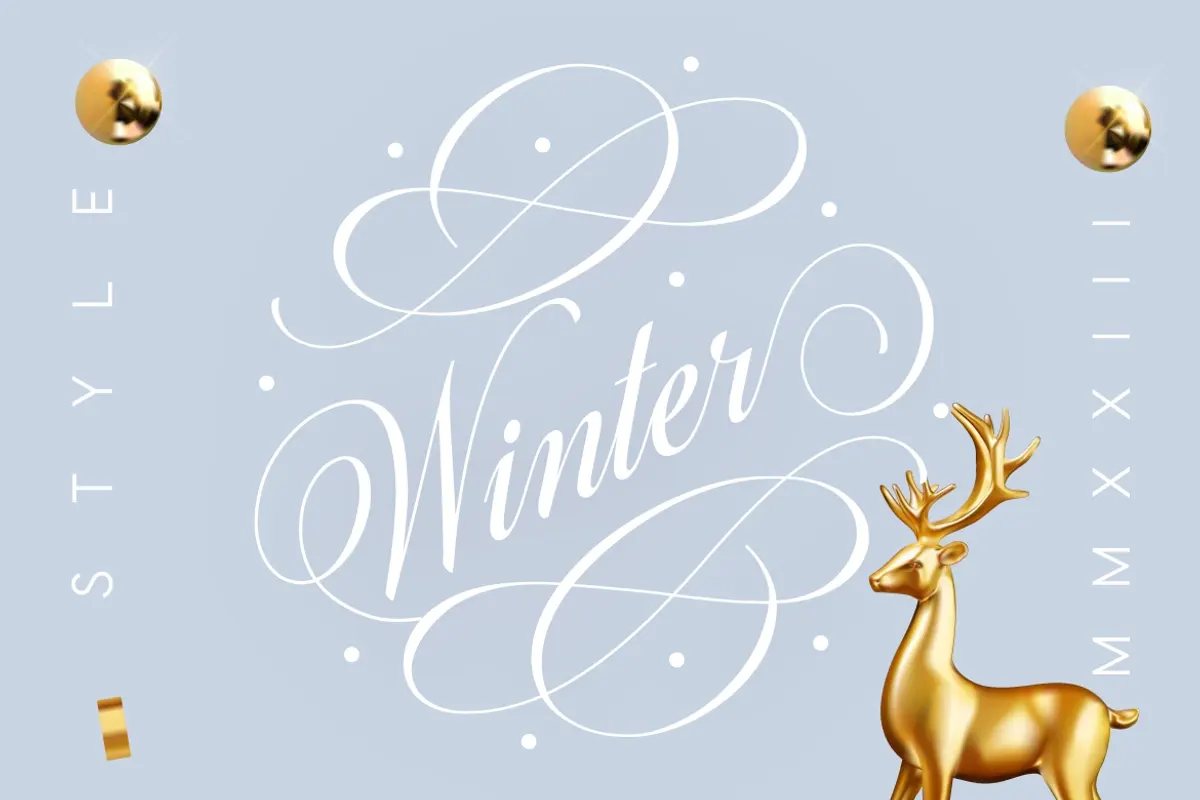
Winter Elegant Fonts Bundle Free Download is a carefully curated collection of sophisticated, seasonal typefaces perfect for capturing the cozy charm and refined spirit of winter. Featuring a mix of elegant scripts, timeless serifs, and stylish display fonts, this bundle is ideal for holiday cards, winter wedding invitations, seasonal branding, packaging, and festive social media content.
Each font in the Winter Elegant Fonts Bundle Free Download is designed to bring warmth, elegance, and creativity to your winter-themed projects. With features like ligatures, alternates, and multilingual support, you can craft unique, professional typography with ease.